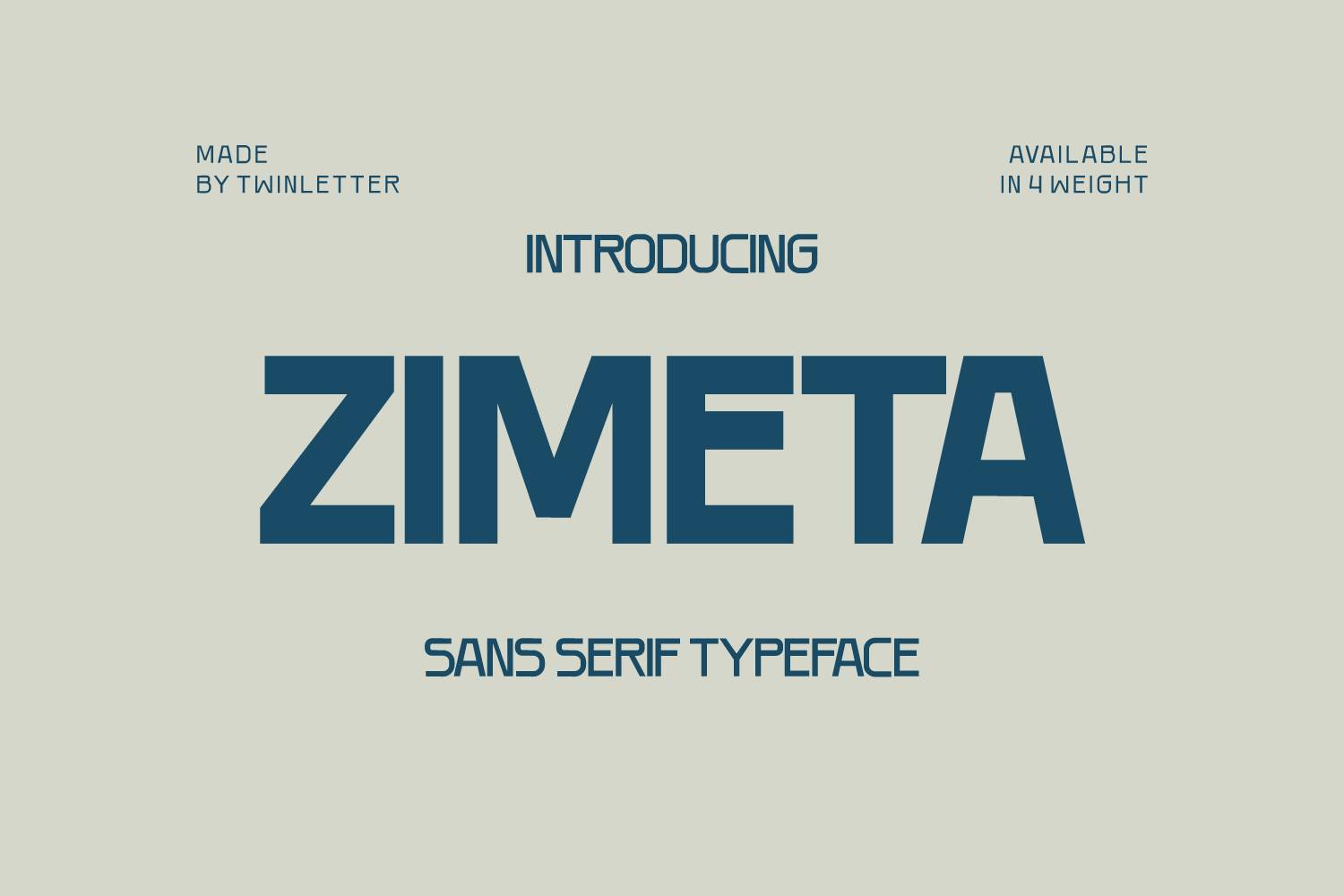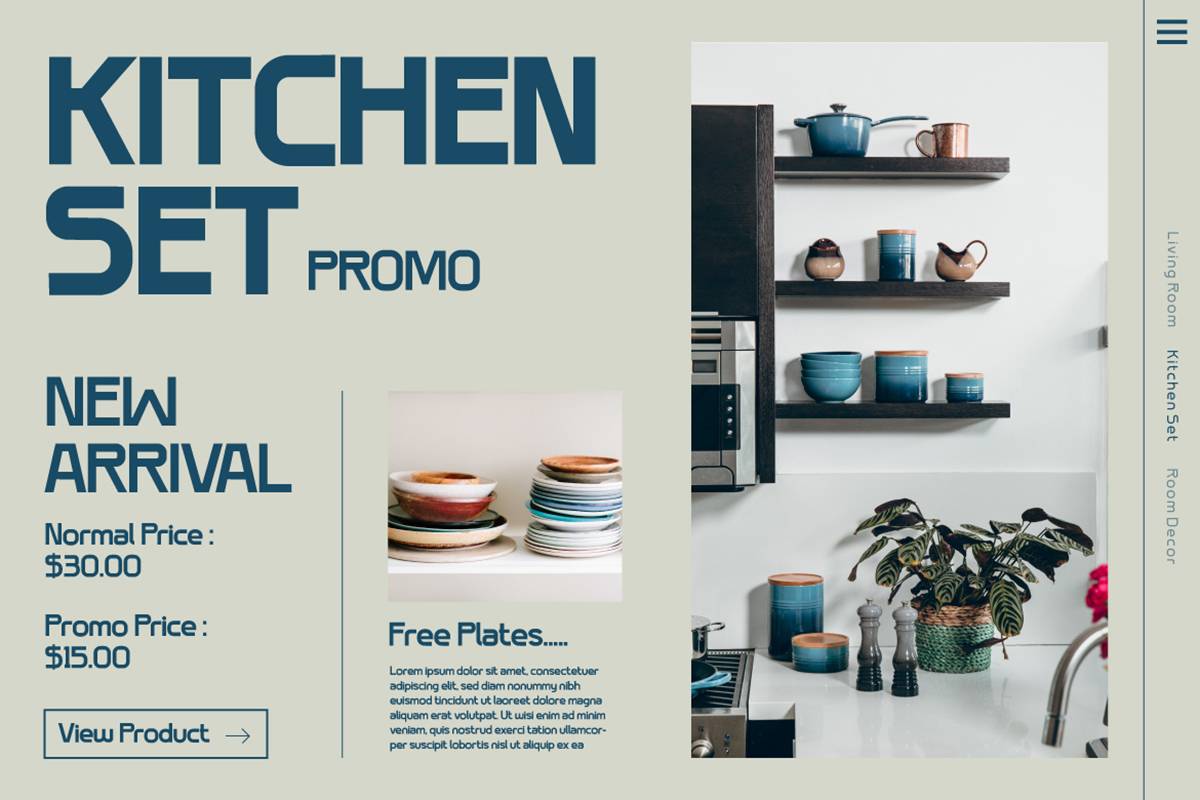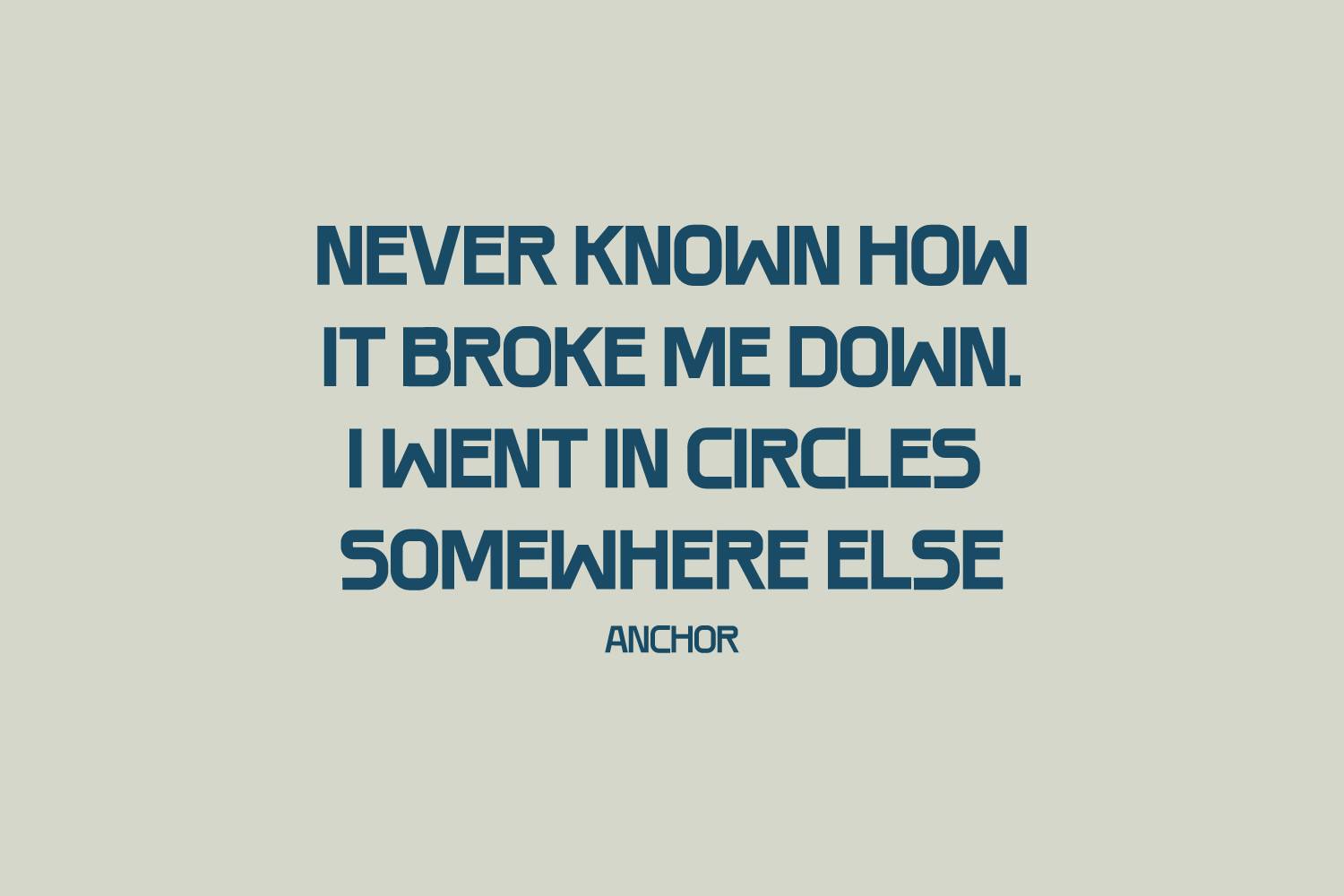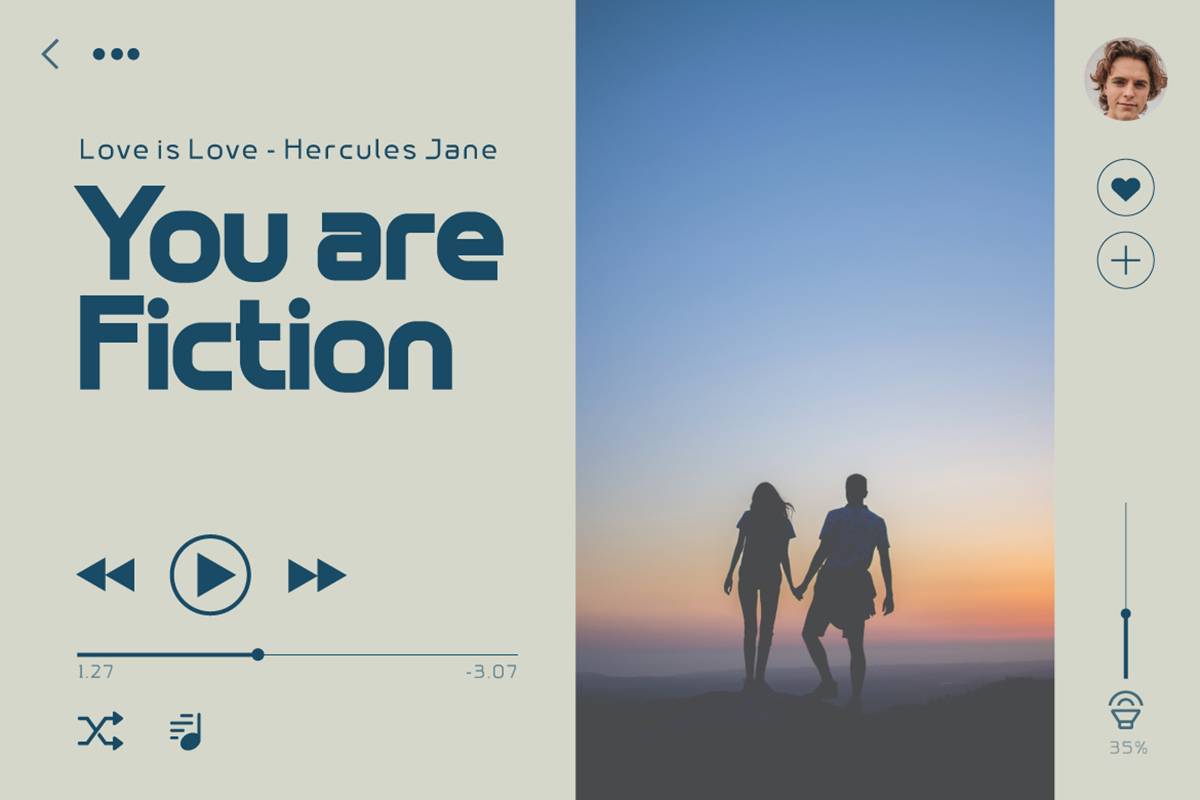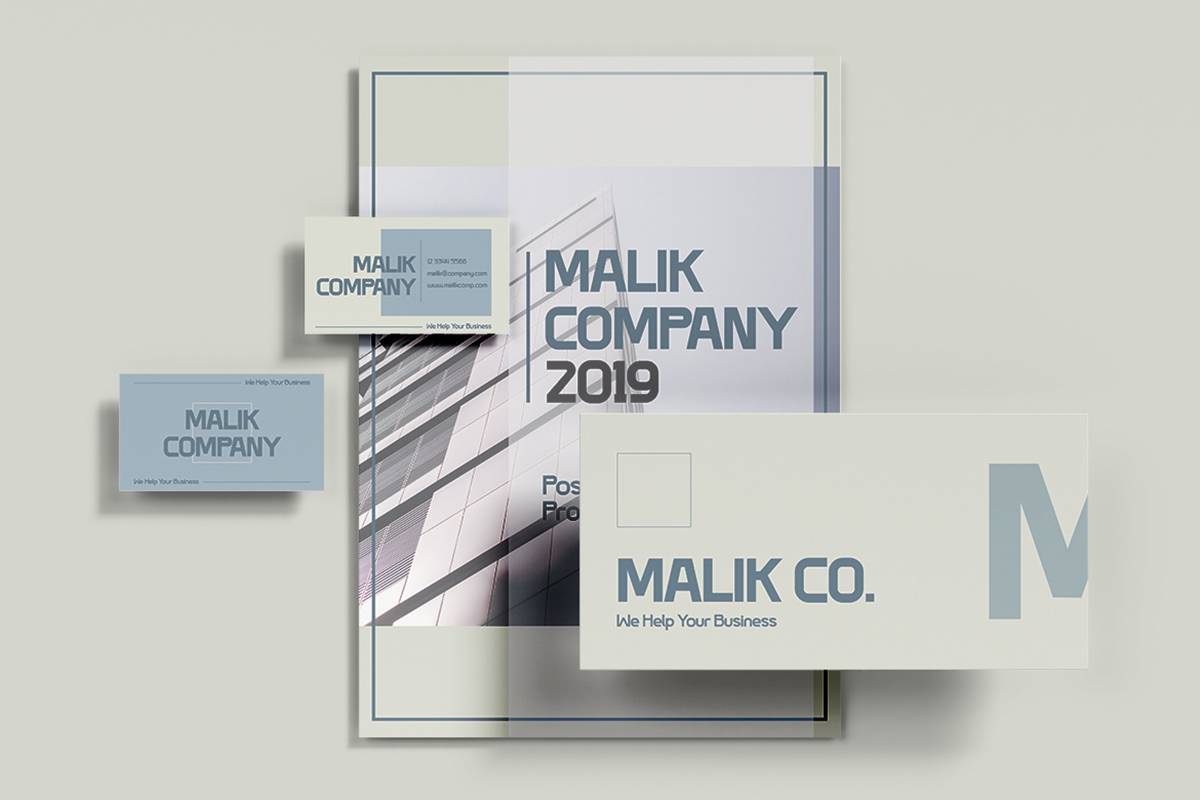
Zimeta is a clean, modern sans serif font with a slightly condensed width and medium stroke contrast, giving it a sleek and structured appearance. It features sharp, geometric letterforms with a distinctive single-story "a" and a unique approach to characters like "Q" and "R," making it ideal for contemporary branding and editorial design. Its clear, bold style works well for headlines, logos, and websites that require a professional yet approachable tone.
Zimeta Font
About Zimeta Font
| Font family | Zimeta Font |
| Release date | 2022-01-13 |
| Designer | Murozakul Akhsan |